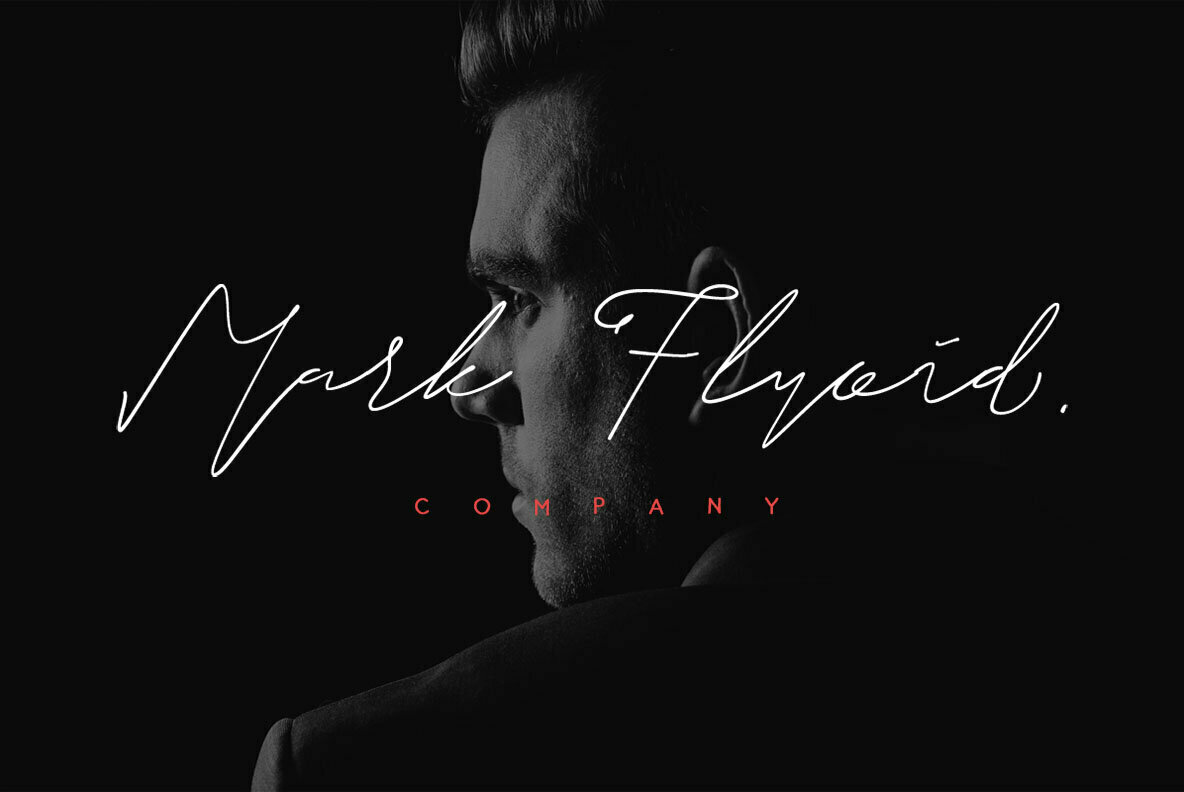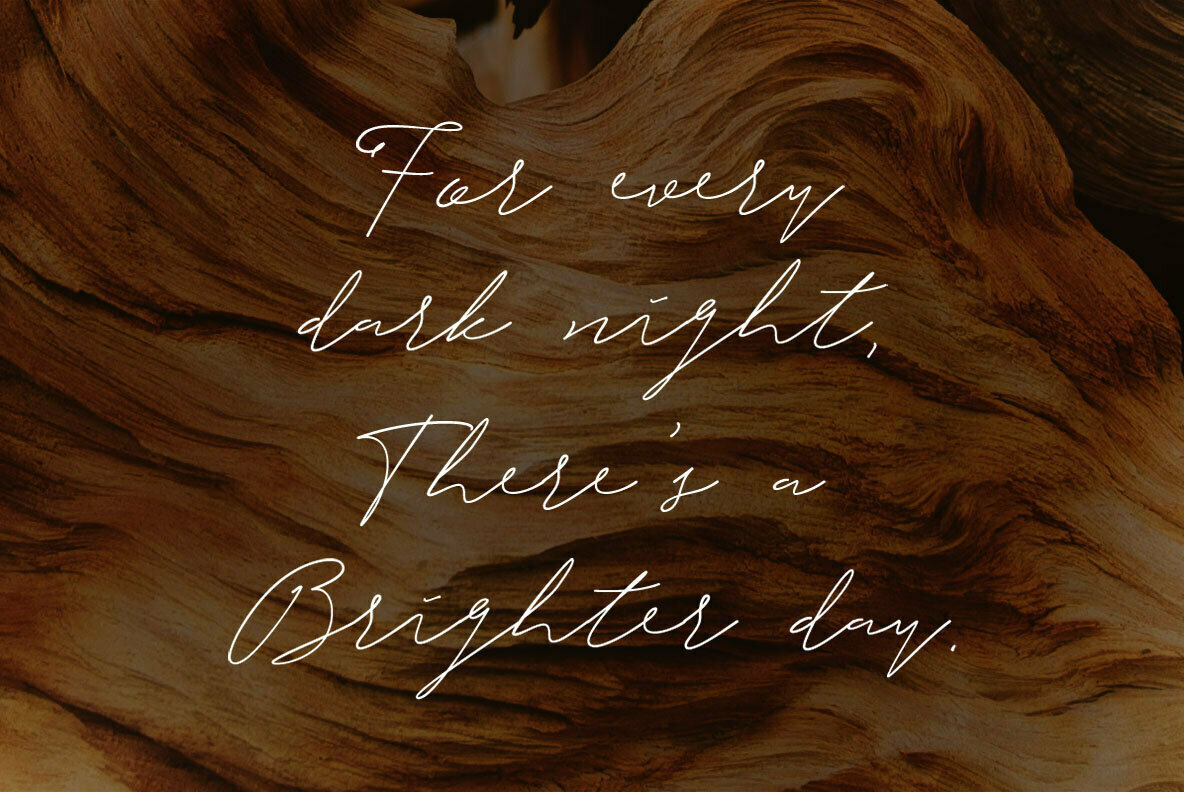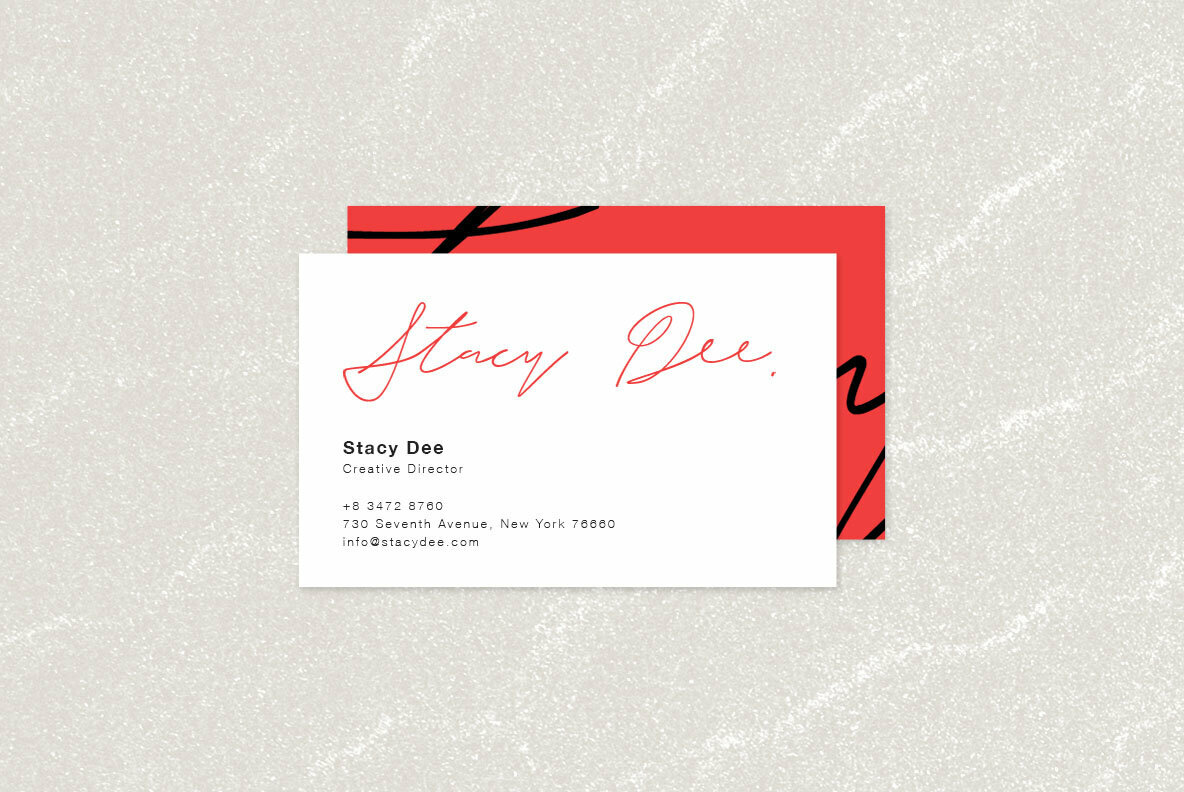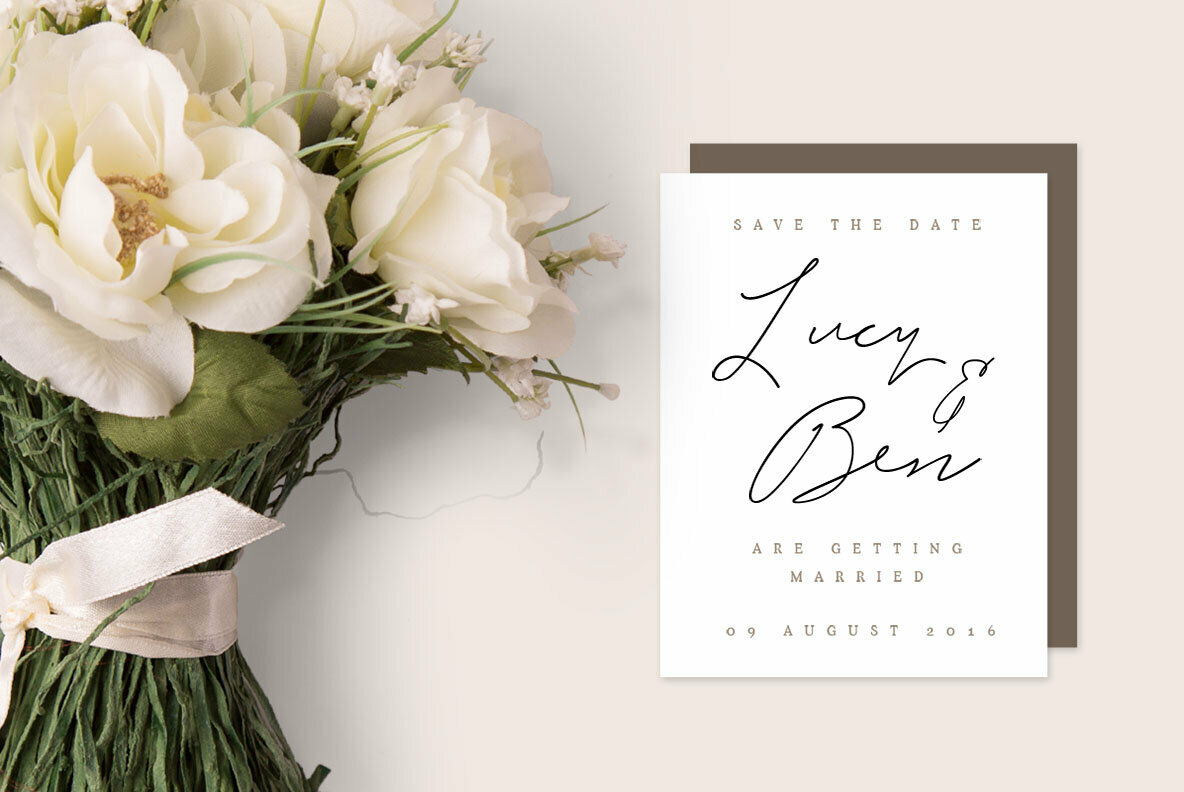
Hullist Font
Hullist
The letters of this font have been crafted with care to make your text look beautiful. It's perfect for projects such as quotes, blog headers and posters! This is a modern script style font that will work in many different areas like weddings or branding products/services you offer onto clients who want something more creative than just their average logo design.